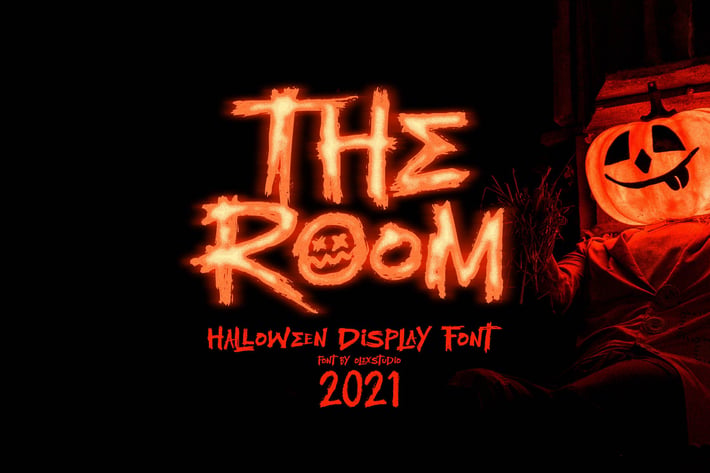
THE ROOM - Display Font
THE ROOM - Display Font will look gorgeous on all your designs, with a natural handbrush make your design more attractive!
THE ROOM - Display Font contains standard characters, all Glyphs is uppercase, numbers, punctuation, ligatures and international glyphs. You will receive OTF, TTF files & WEBFONT.